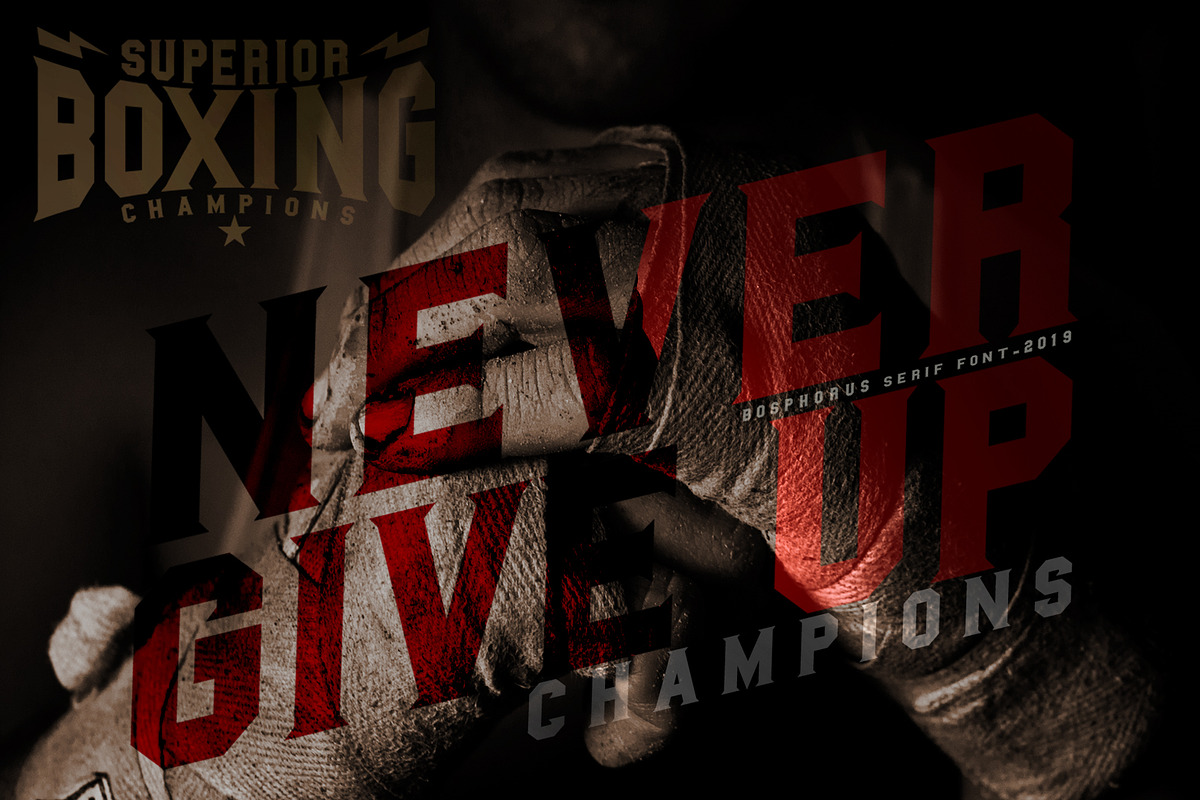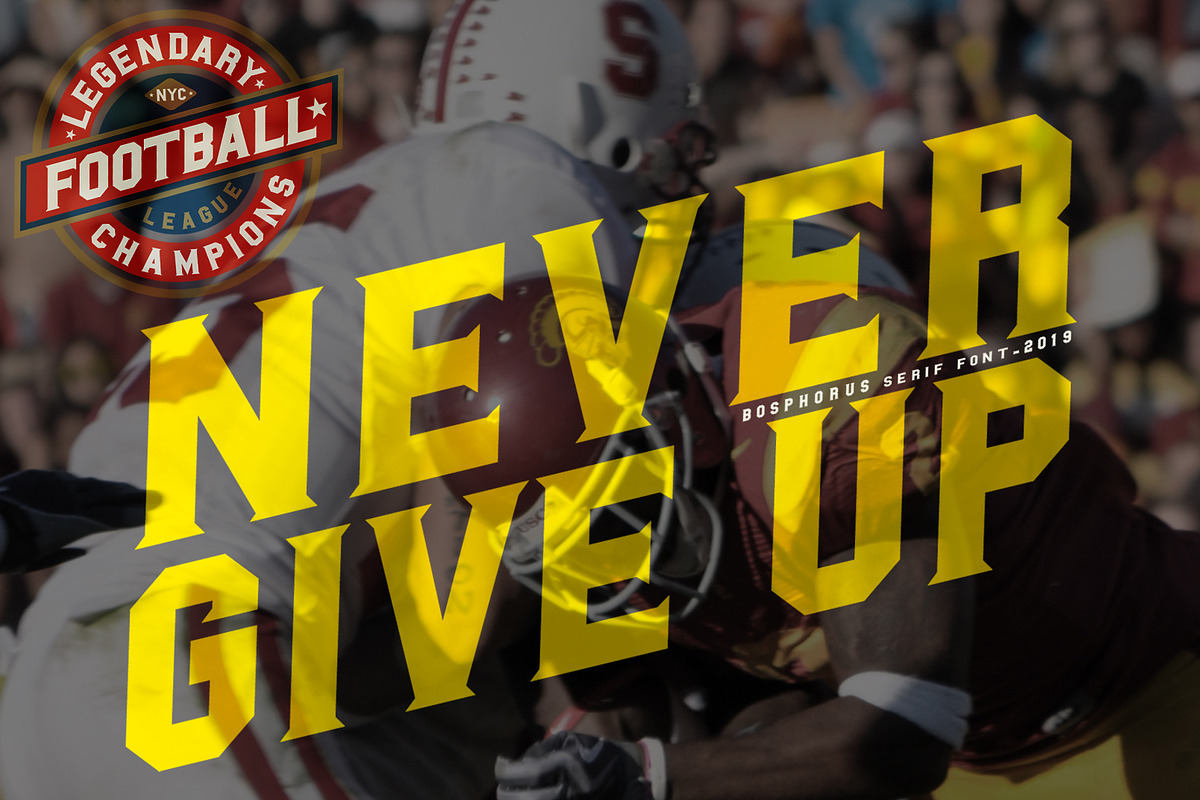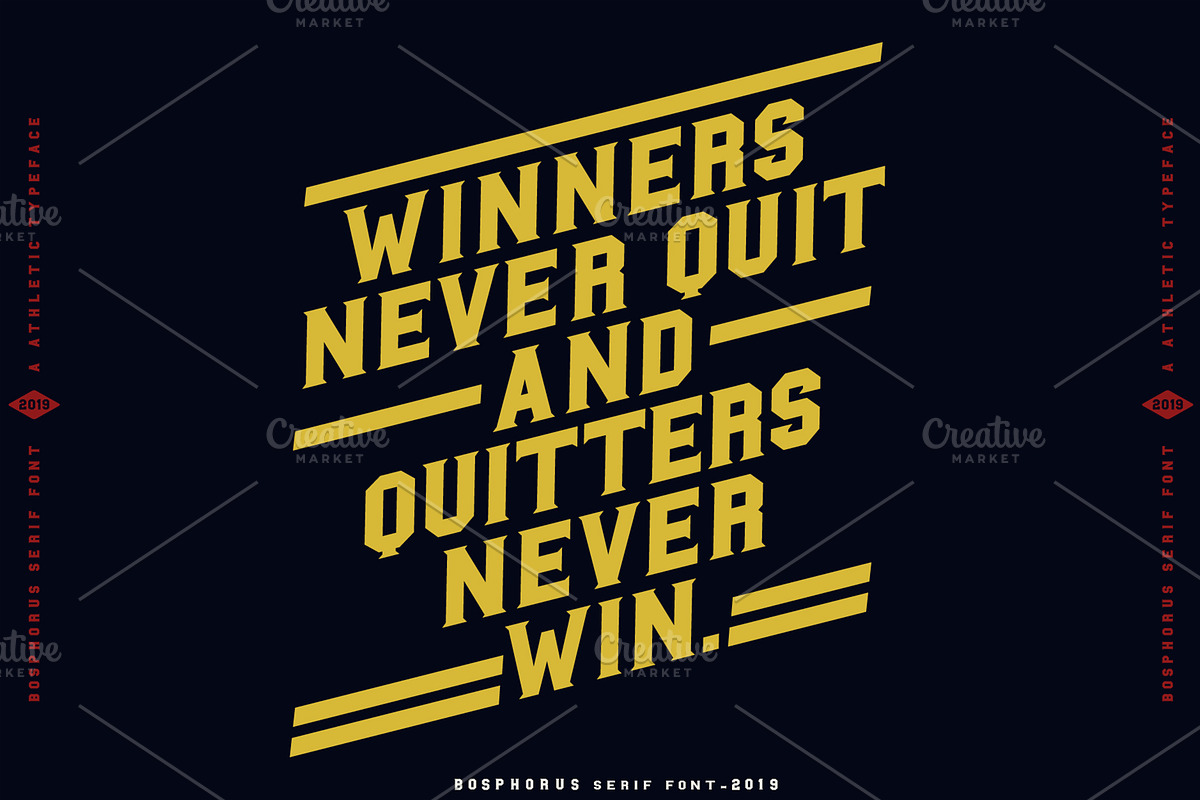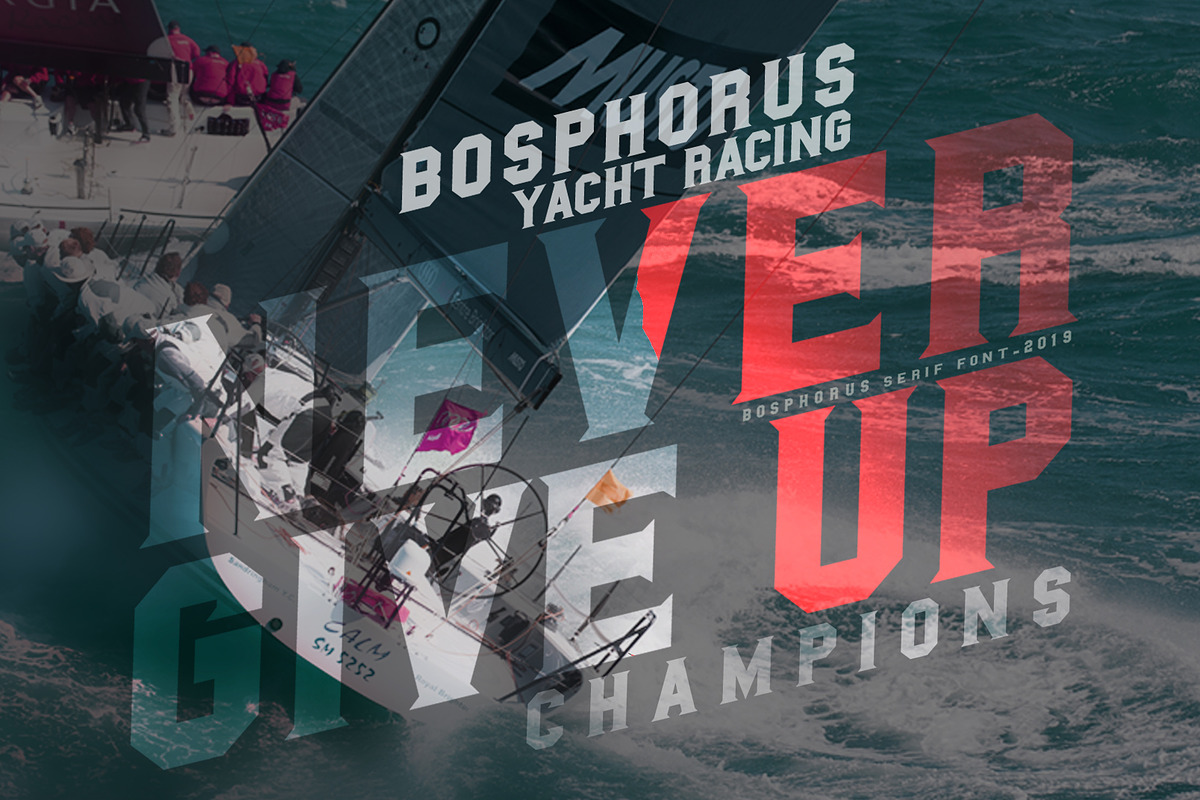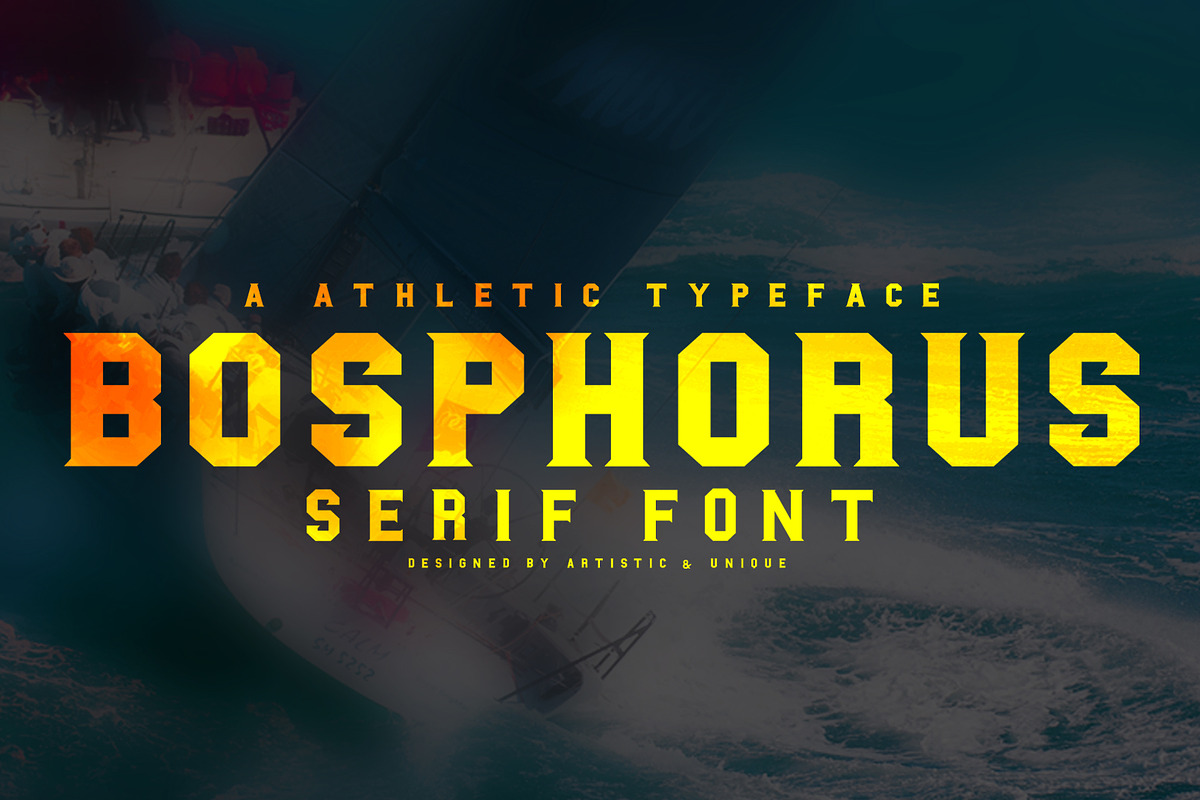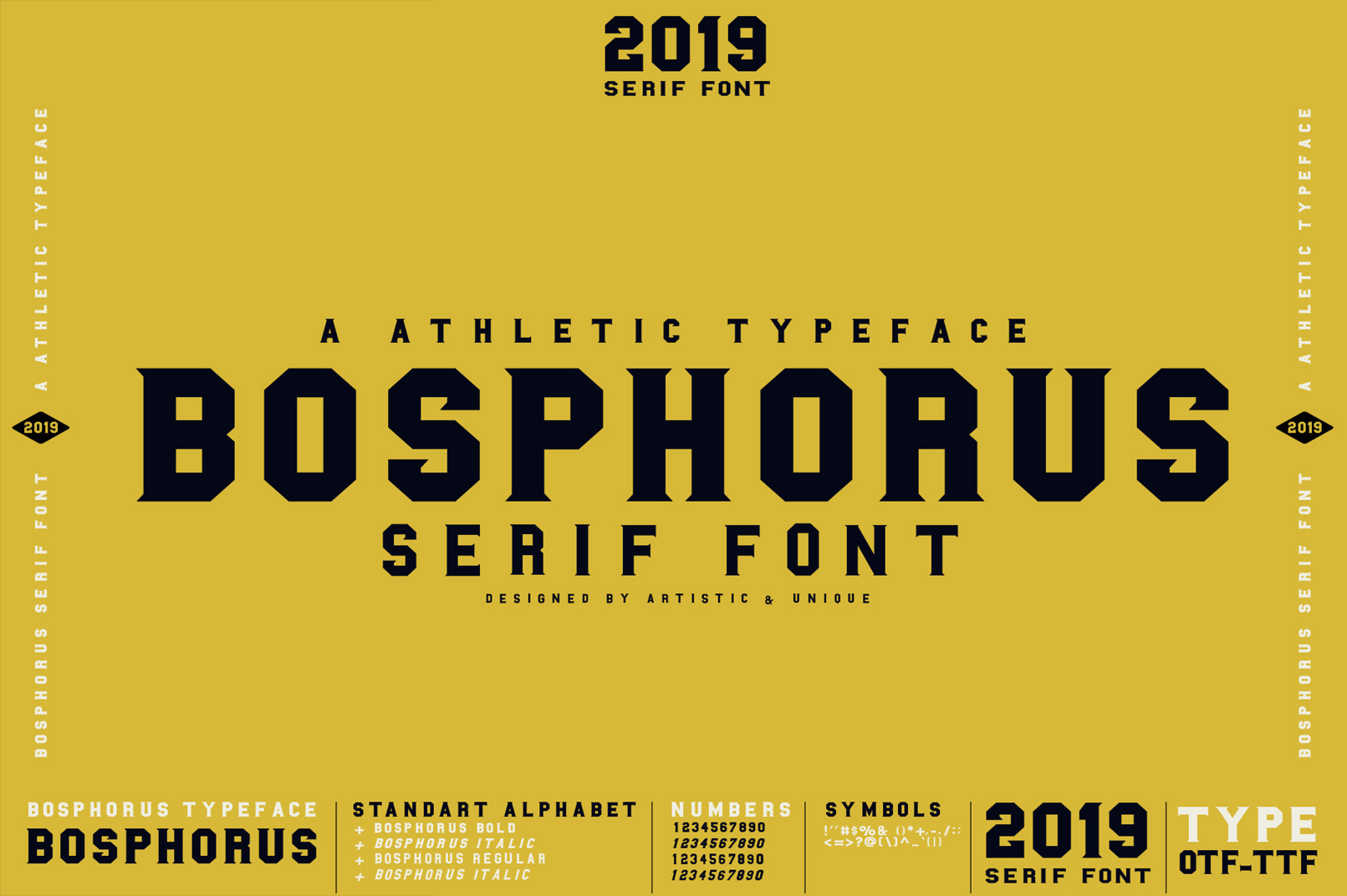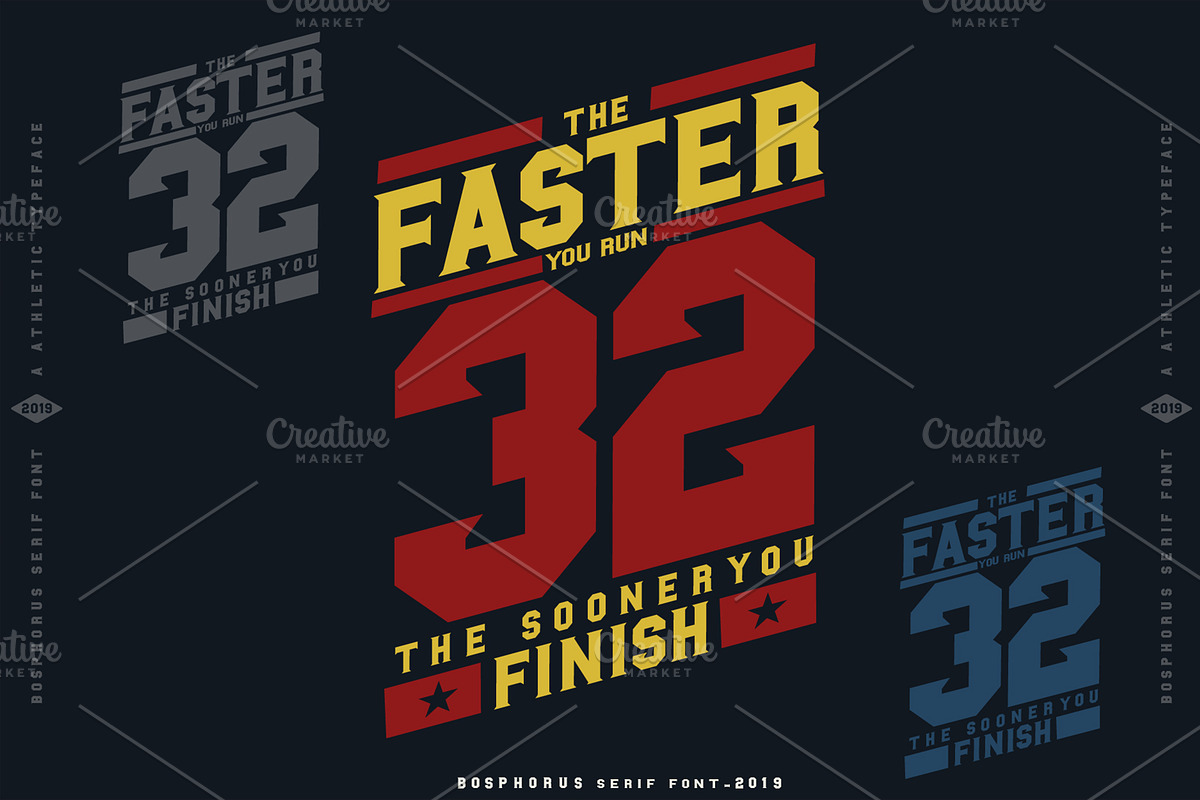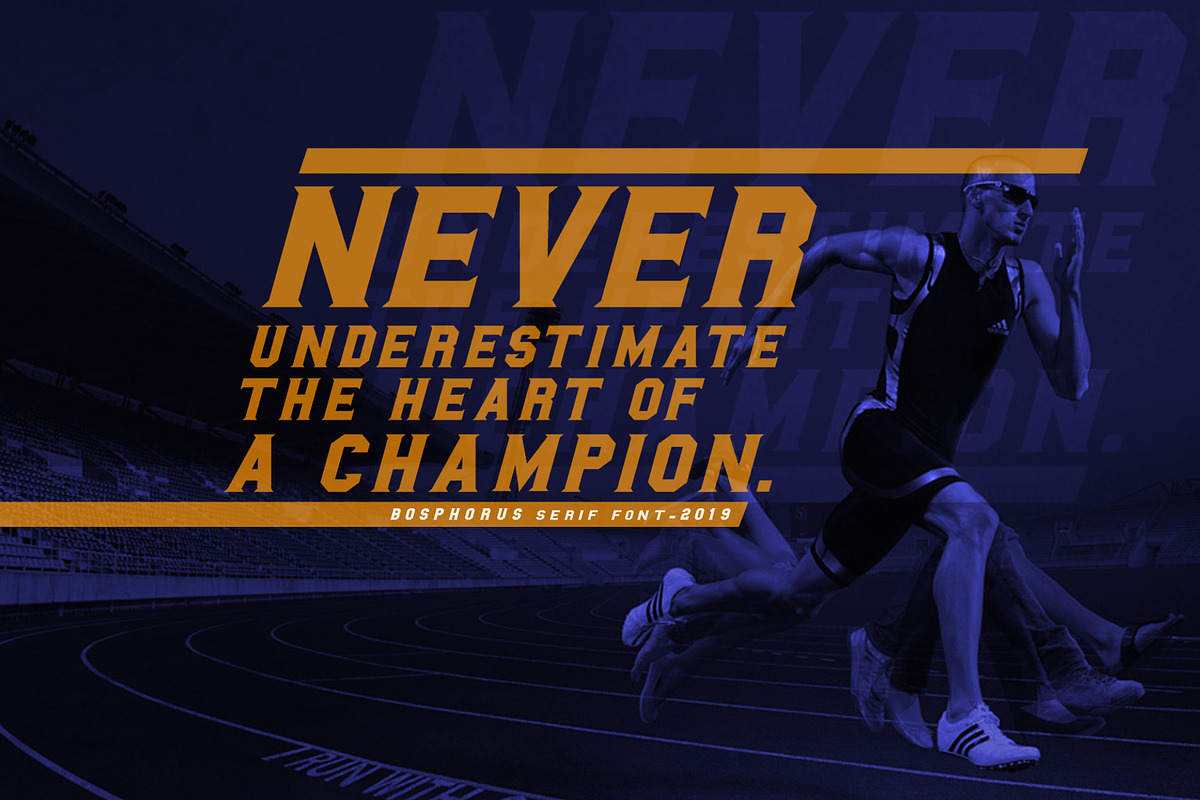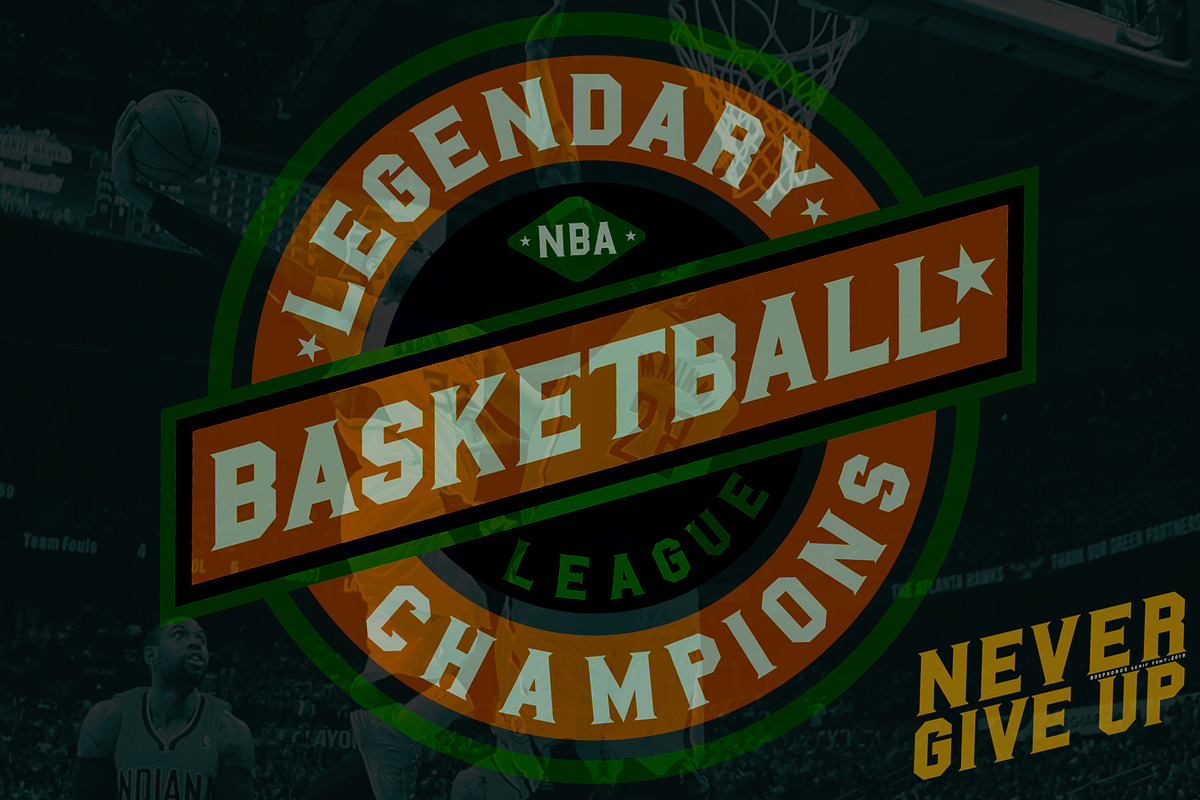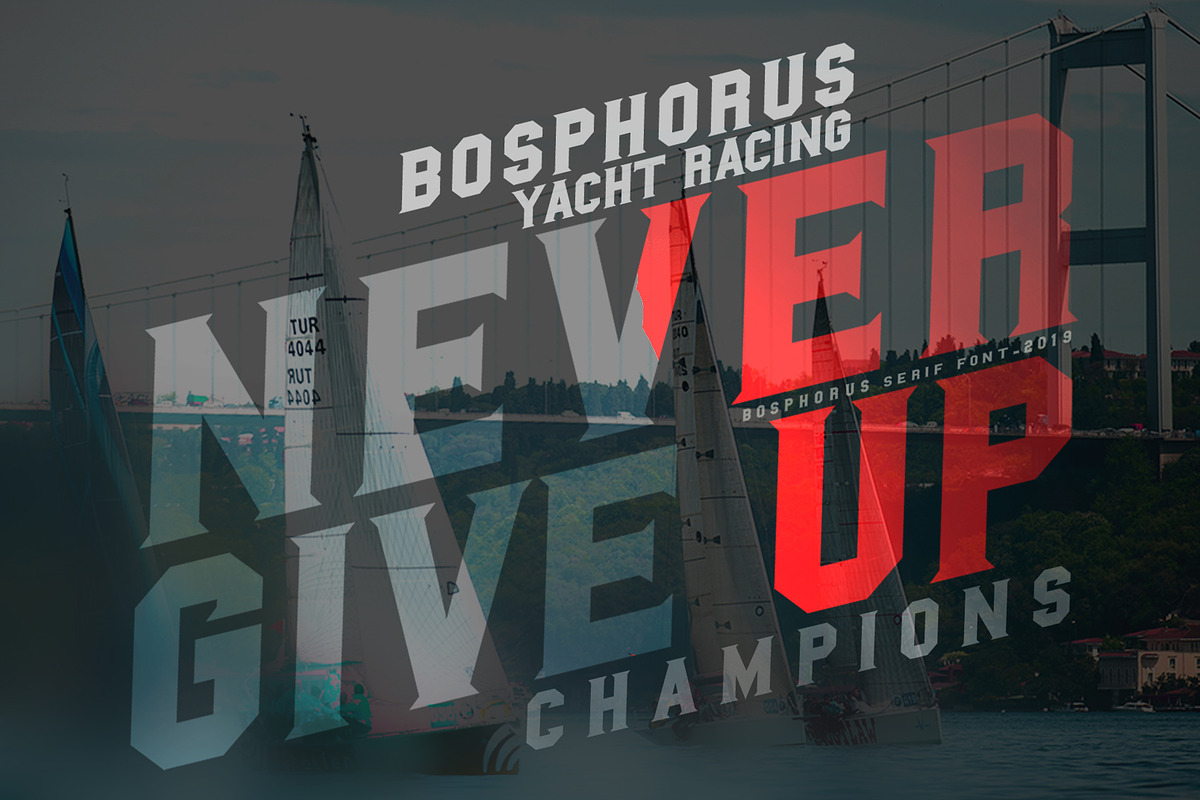
BOSPHORUS Serif font
BOSPHORUS Serif font (2019)
INTRODUCING - BOSPHORUS Serif font
BOSPHORUS font family the modern which inspired from sporty design and vintage style. There are 4 different style that you can apply in your design project. With this font you can create your unique designs. You can use this font for various purposes.
BOSPHORUS-Bold
BOSPHORUS-Bold Italic
BOSPHORUS-Normal
BOSPHORUS-Normal Italic
With this font you can create your unique designs. Make a great combination on your label design, branding, poster headline, movie title, store front, magazine headline, sport design, sport apparels etc.